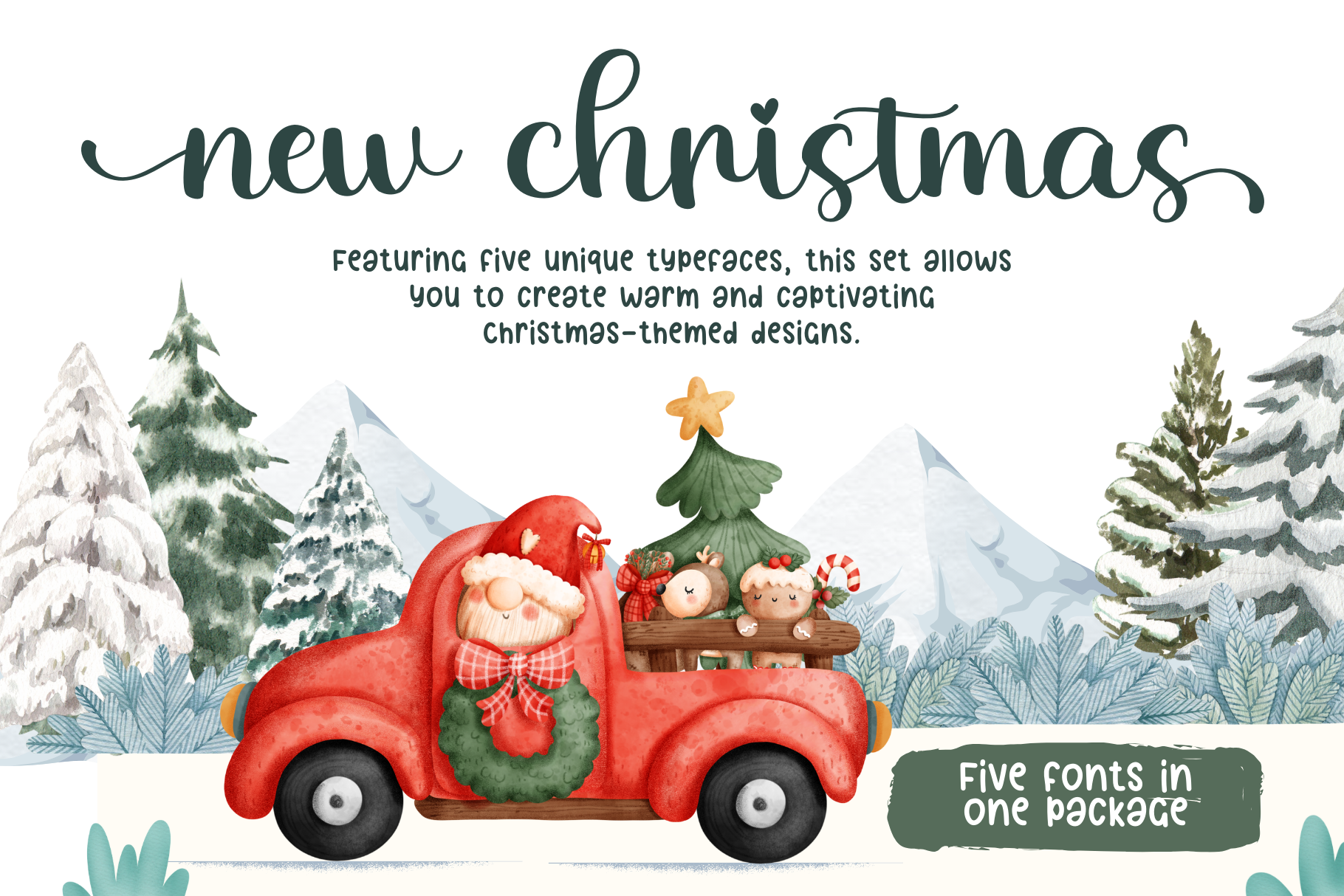
New Christmas - Christmas Font
New Christmas is mazing hand lettering look attractive and natural! Every single letters have been carefully crafted to make your text looks beautiful. This font includes 253glyphs, including 52 alternates character with swashes. It has over 60 extended Latin characters for language support. This font is suitable for invitation, branding, advertising, mugs, christmas cards, poster design etc, and also this font is PUA encoded so all characters are accessible via Character Map, Font Book, or the font management program of your choice.